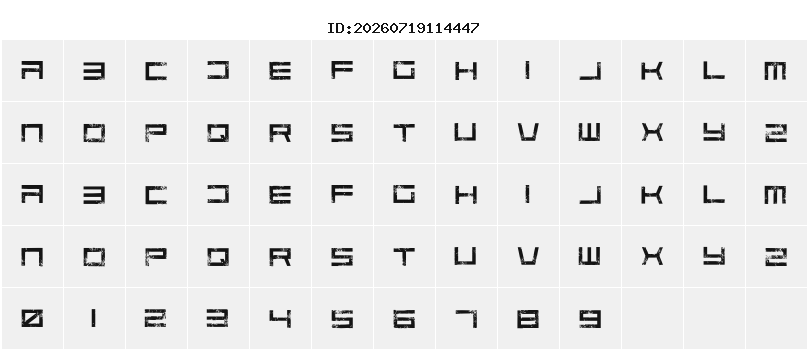
• Font Name: Code Predators
• Designer: Roland Huse
• Manufacturer: Font Monger
• Description: Code Predators Regular is a font by Font Monger, designed by Roland Huse in 2015.
About Code Predators.otf
Code Predators.otf is a modern, elegant sans-serif font designed for ultimate readability and visual harmony. Perfect for branding, headlines, web design, and print materials.